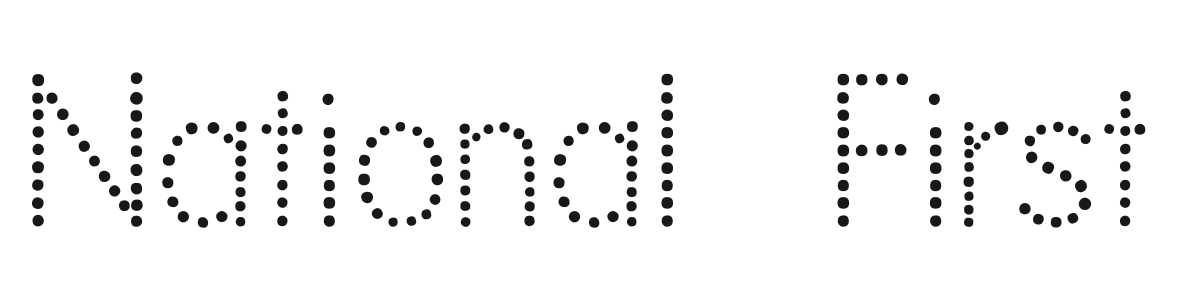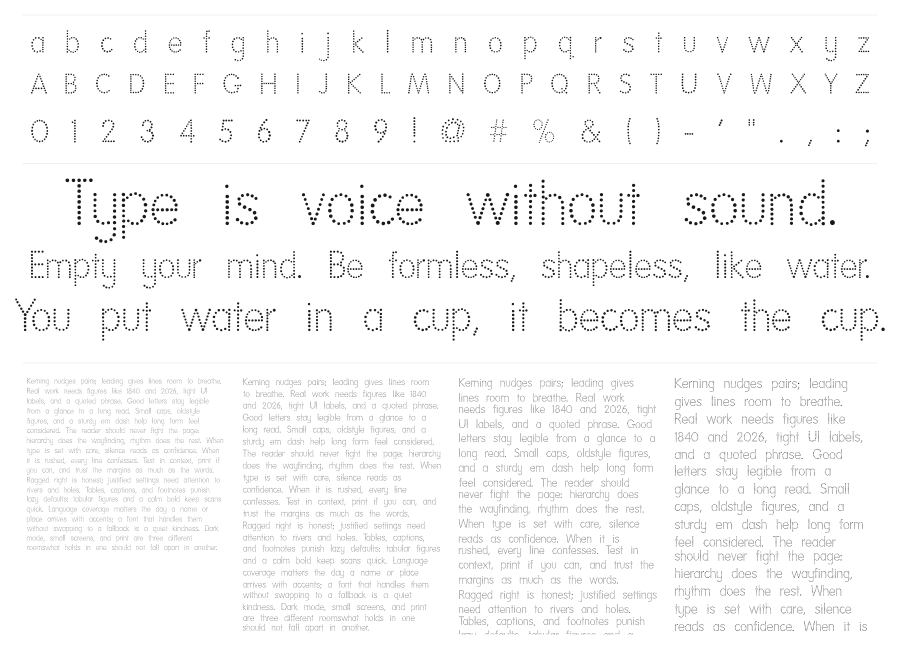
National First
National First is a dotted handwriting-guide font from 1994, designed to help children learn letter formation in classroom worksheets. Each character is built from evenly spaced dots that trace the stroke path, giving the typeface a light, open texture that children can trace over or fill in. The design is practical first, but its airy dotted construction also gives it genuine charm as a novelty display face.